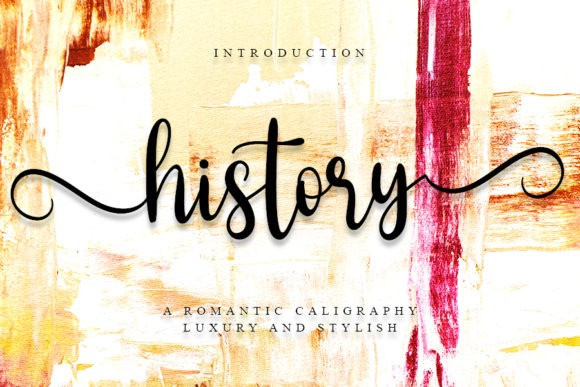
History Typeface
History Typeface, is a superb calligraphy font. It can be used for various purposes such as logos, wedding invitations, headings, t-shirts and much more. This font is PUA encoded which means you can access all of the glyphs and swashes with ease!